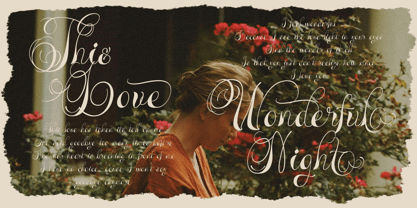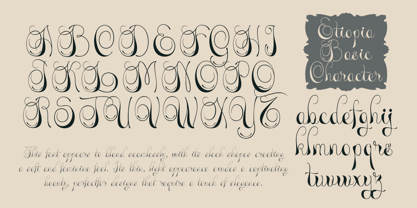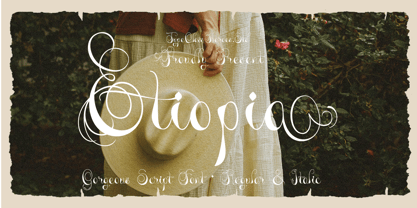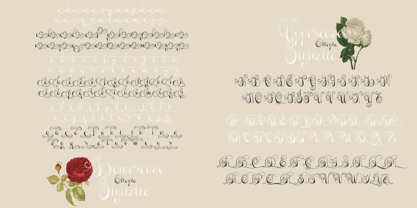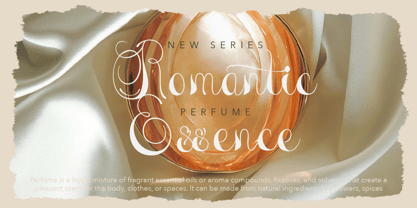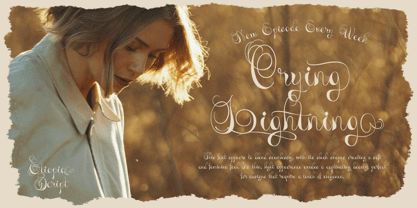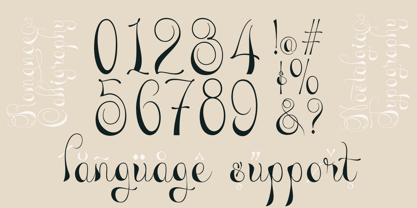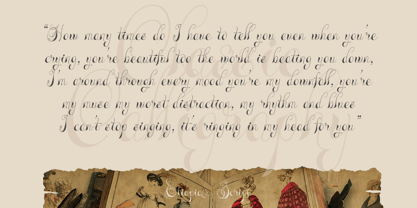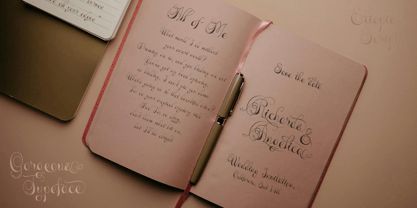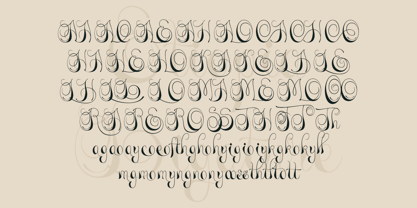
Etiopia
by TypeClassHeroes
The Etiopia Font Family was designed by Suandana ipandemade and published by TypeClassHeroes. Etiopia contains 2 styles and family package options. More about this family
Introducing Etiopia Script, this font appears to blend seamlessly, with its sleek shapes creating a soft and feminine feel. Its thin, light appearance exudes a captivating beauty, perfect for designs that require a touch of elegance, high-end branding, book covers, or high class invitations, royale wedding particularly for classic or heritage brands.
Designers: Suandana ipandemade
Foundry: TypeClassHeroes